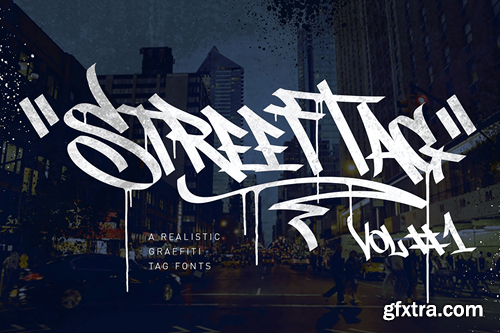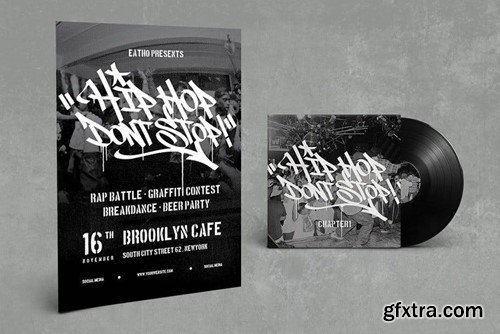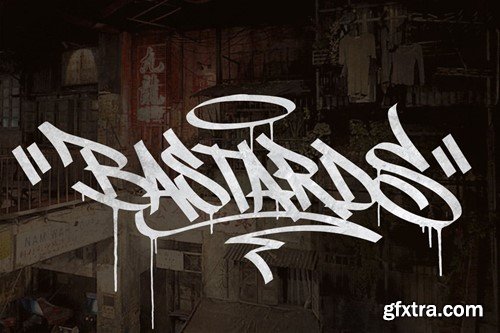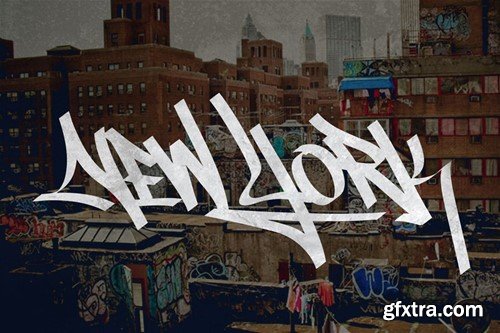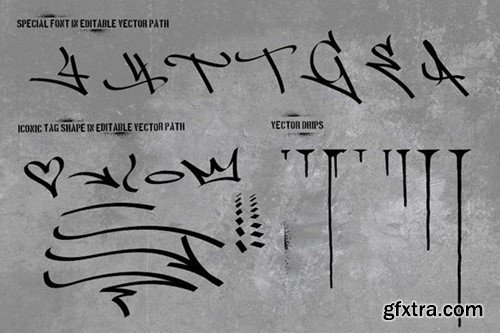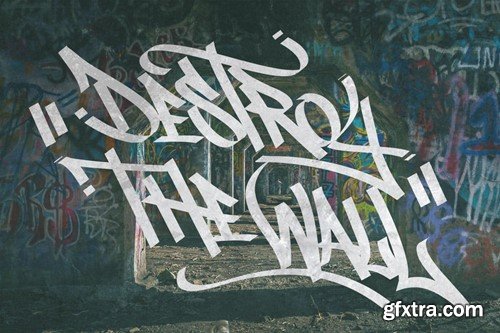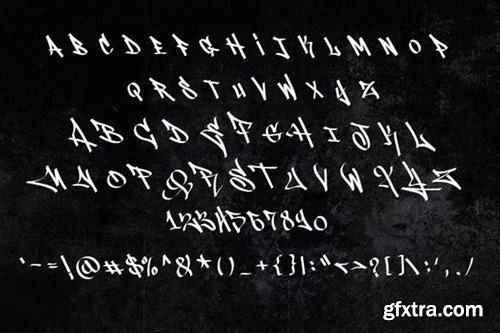
Graffiti fonts Street Tag Vol1
Street Tag vol1 is inspired from graffiti tag in urban areas in Jakarta, i also draw graffiti, tag and throw up since high school. This is originally my style, inspired from some my favourite graffiti artist, my tag style is not so tidy and i think you guys should adjust the kerning manually again, because it’s impossible to adjust them to be tidy. You’ll also get some bonus here in vector format, you’ll get outlined typeface, special character (drips, line, another tag symbol etc) and Hip hop poster design bonus, i also create special letter "G",“Y” and “T” in vector base, so you can edit the path as you like, combine with the original font, you can see the sample. File included ttf otf